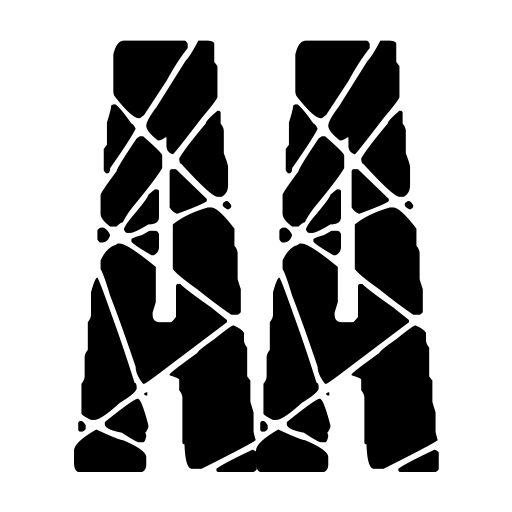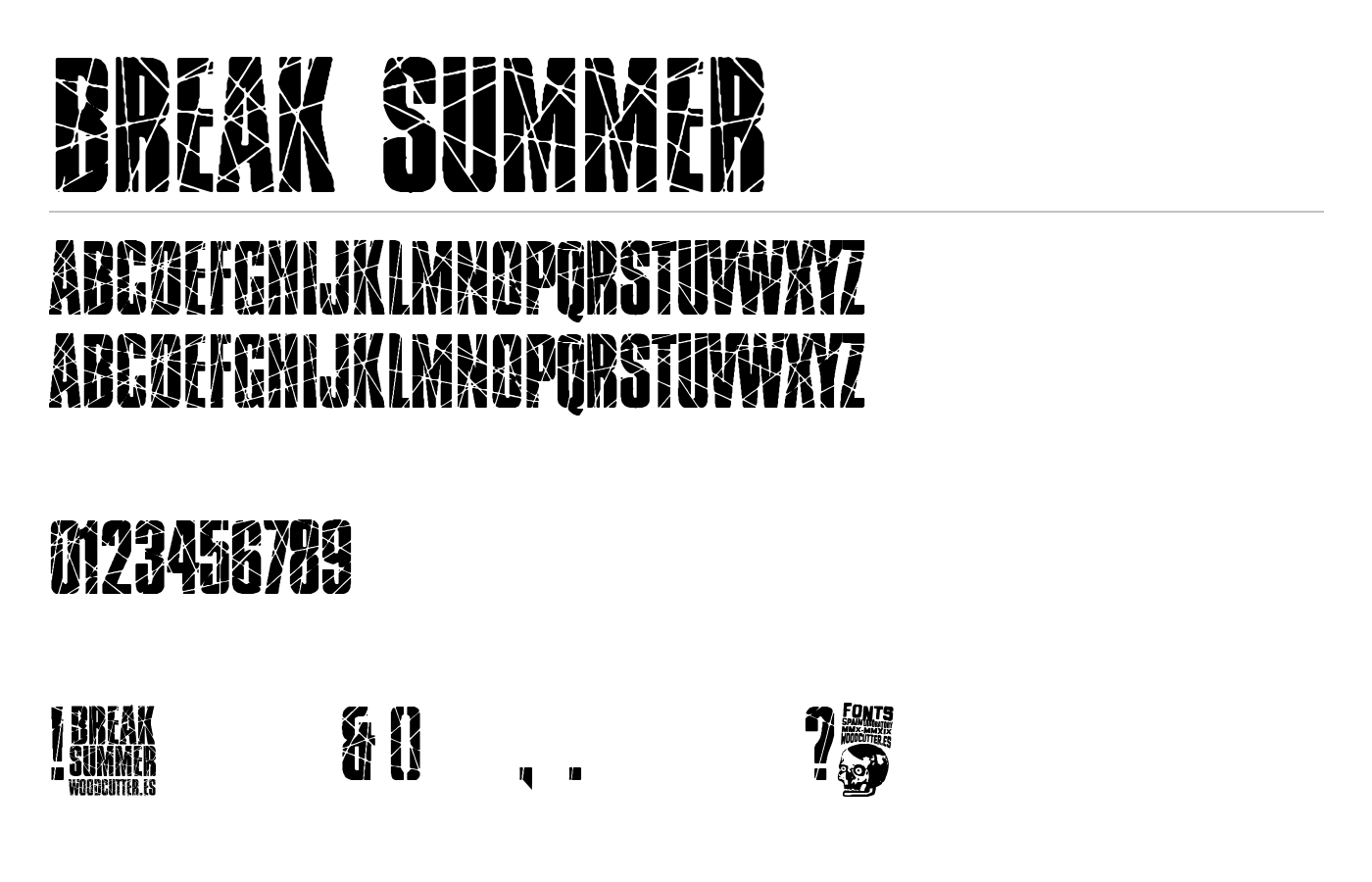
Break Summer is a bold, condensed sans serif font with a distinctive shattered or cracked texture that gives it a rugged, distressed look. Its strong vertical lines and high contrast create a striking and edgy appearance, making it ideal for eye-catching headlines, posters, or branding that demands a rebellious, urban vibe. This font works well when you want to convey intensity and raw energy in creative, modern designs.
Break Summer Font
About Break Summer Font